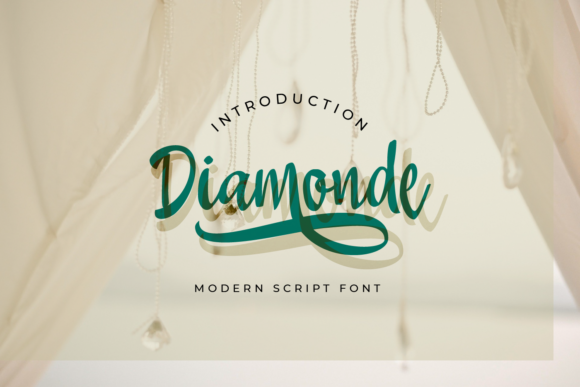
Step into the world of Diamonde Font, a script font that exudes elegance and sophistication. Born from the creative mind of Nico Muslib, Diamonde is a visual masterpiece that transforms your designs into captivating works of art.
As a font specifically designed for headers, Diamonde takes center stage, commanding attention with its graceful curves and sweeping strokes. Its presence elevates your words, giving them a weight and impact that resonates with your audience. Whether you're crafting wedding invitations, thank-you cards, or eye-catching logos, Diamonde adds a touch of timeless beauty that makes your designs truly unforgettable.
With Diamonde Font, your designs transcend the ordinary and enter the realm of the extraordinary. Its versatility knows no bounds, allowing you to effortlessly create stunning quotes, greeting cards, and business cards that leave a lasting impression. Each letter, meticulously crafted and lovingly rendered, carries a story, a message, a unique expression of your creativity.
Diamonde Font is more than just a font; it's an invitation to let your imagination run wild. Its handwritten touch infuses your designs with a personal, heartfelt quality that connects with your audience on a deeper level. With Diamonde, your designs become an extension of yourself, conveying your message with grace, elegance, and a touch of whimsy.